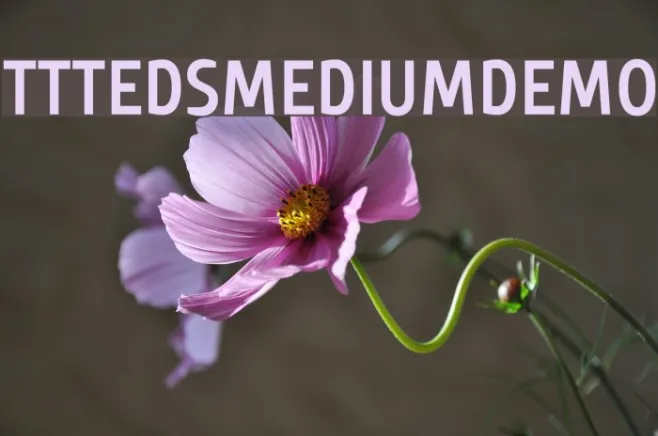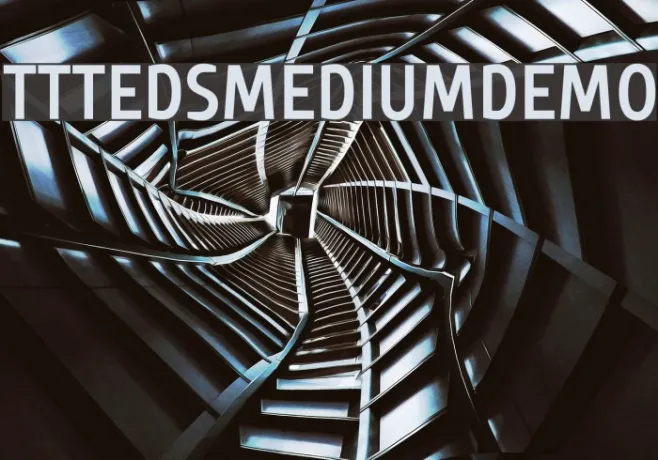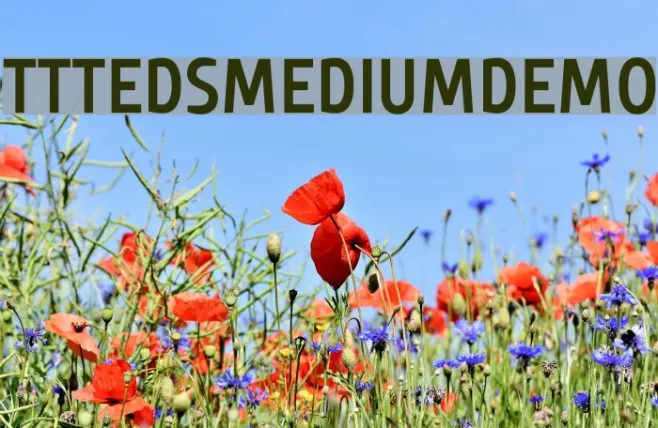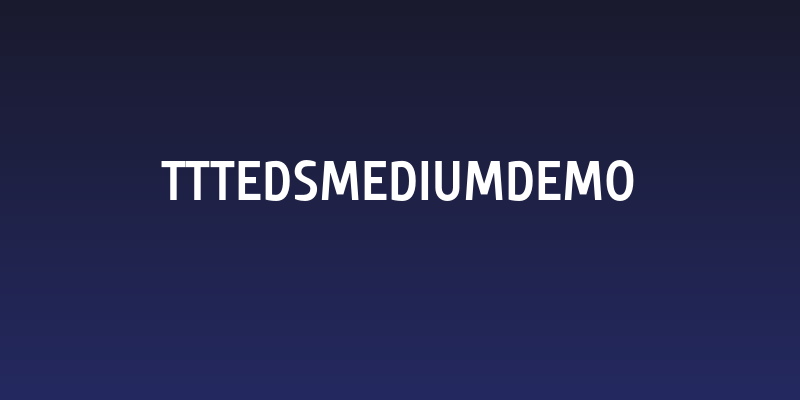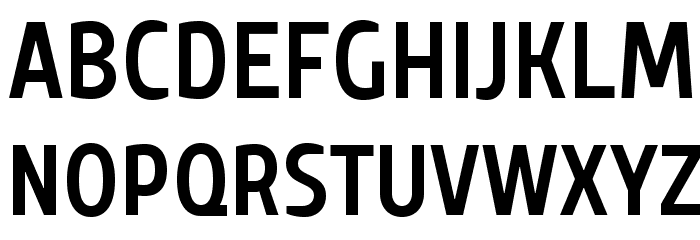
TTTedsMediumDEMO Font
TTTedsMediumDEMO Description
This font features a clean and modern sans-serif design with uniform stroke widths, providing a balanced and professional appearance. The characters are bold and well-defined, making them highly legible across various sizes. The uppercase and lowercase letters maintain a consistent style, while the numerals and special characters are crafted to complement the overall aesthetic. The font's simplicity and clarity make it suitable for a wide range of applications, from digital interfaces to print media.
| Proposed Projects | Ideal for branding, advertising, web design, and editorial layouts. |